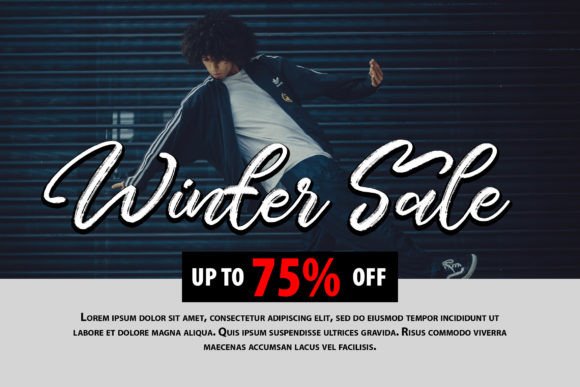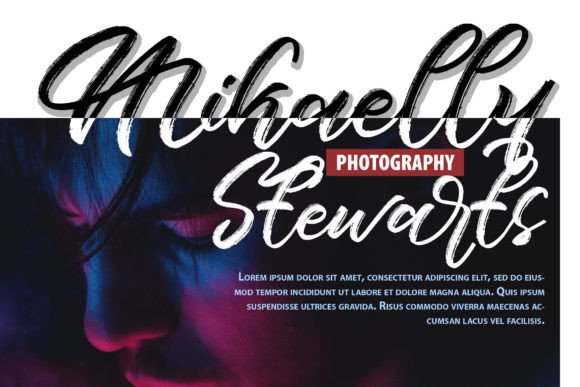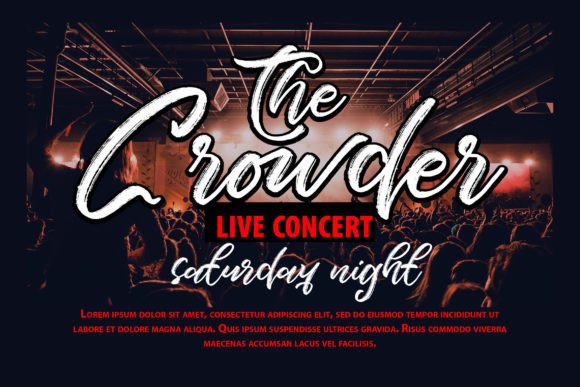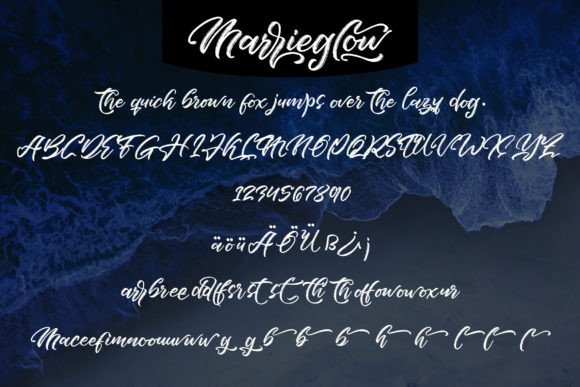
Introduction to Marrieglow Font
Have you ever been working on a creative project, pouring your heart and soul into it, and then – suddenly – you need the perfect font to bring it all together? That’s exactly what happened to me when I stumbled upon the Marrieglow Font. Its unique blend of elegance and playfulness instantly caught my attention, and I knew I had to share it with fellow designers.
As a valuable addition to any design library, Marrieglow Font is a free download that offers a high-quality, transparent background, making it perfect for any creative project. With its PUA encoding, accessing all glyphs and swashes is a breeze, giving you the freedom to experiment with different styles and combinations. Whether you’re working on a logo, a brochure, or a website, Marrieglow Font is sure to elevate your design to the next level.
So, what makes Marrieglow Font so special? For one, its brush script design is both elegant and versatile, making it suitable for a wide range of creative projects. Its high level of detail and craftsmanship is evident in every letter, making it a true gem in the world of design resources.
Key Features of Marrieglow Font
- Unique, hand-drawn style with a transparent background, perfect for adding a personal touch to your designs.
- Includes multiple font styles and weights, allowing for flexibility and customization in your design projects.
- Designed with a focus on legibility and readability, making it suitable for a variety of creative applications.
Honest Review: Marrieglow Font
I recently stumbled upon the Marrieglow Font, a beautiful addition to any design resource. The first thing that caught my attention was the stunning transparent background that allows for seamless integration into creative projects. The font itself is a high-quality, elegant script that can instantly elevate the look of any design.
What works well: ✨ The Marrieglow Font is incredibly versatile and can be used for a wide range of design projects, from wedding invitations to branding materials. The font is also available for free download, making it an excellent choice for designers on a budget.
- ✨ Beautiful transparent background for easy integration into creative projects
- ✨ High-quality, elegant script that can elevate the look of any design
- ✨ Versatile and suitable for a wide range of design projects
However, I did encounter a few limitations: ⚠️ The font is not ideal for large blocks of text, and the transparent background can sometimes be tricky to work with. Additionally, the font’s size and spacing may require some adjustments to achieve the desired look.
Overall, I’m impressed with the Marrieglow Font and would definitely recommend it to designers looking for a high-quality, elegant script. While it may have a few limitations, its versatility and free download make it an excellent addition to any design resource.
Getting the Most Out of Marrieglow Font
To get the most out of the Marrieglow Font, experiment with different font sizes, colors, and combinations. Use it in creative projects such as logo designs, business cards, and social media graphics. This versatile font is sure to elevate your design game.
The Marrieglow Font is ideal for various design projects, including:
- Logo designs